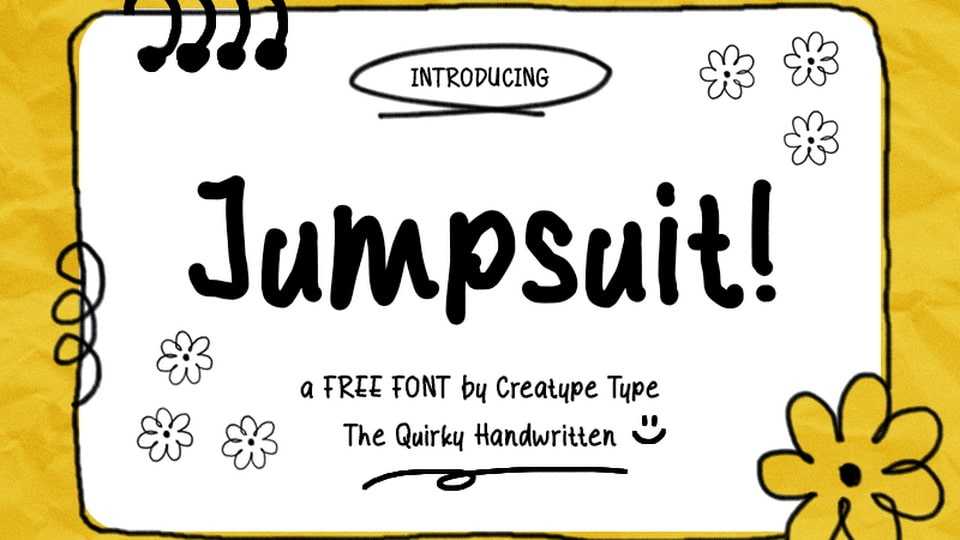
Download Jumpsuit font, a super quirky hand-drawn comic typeface full of wobbly charm and offbeat energy with imperfect strokes and spontaneous lines.